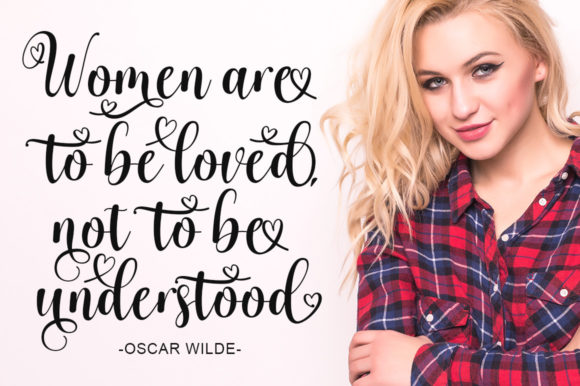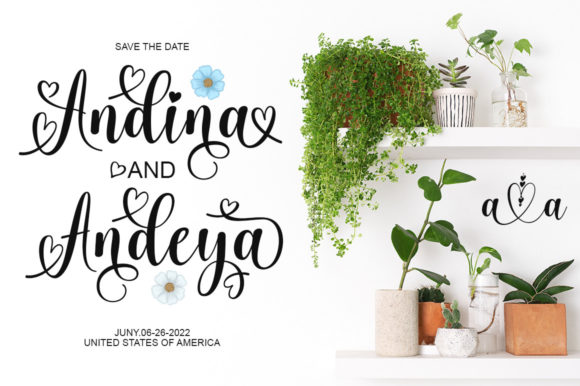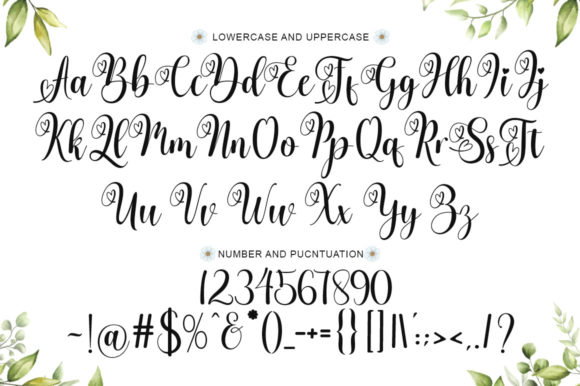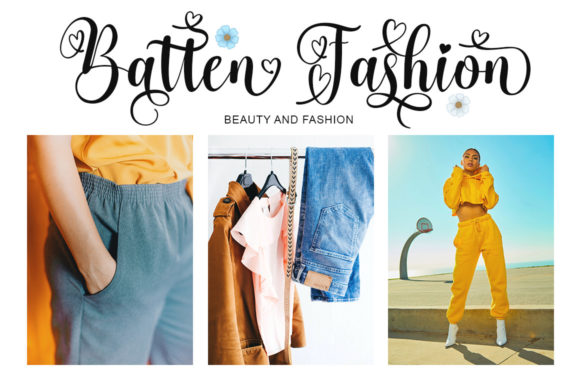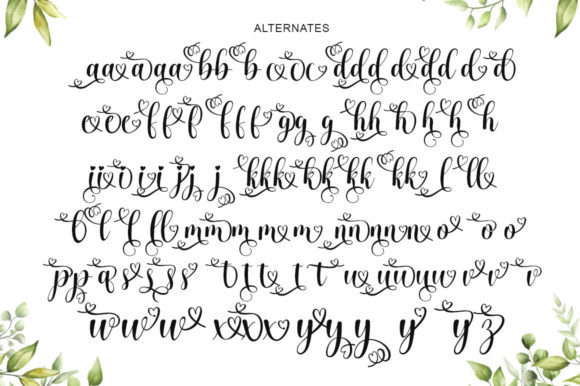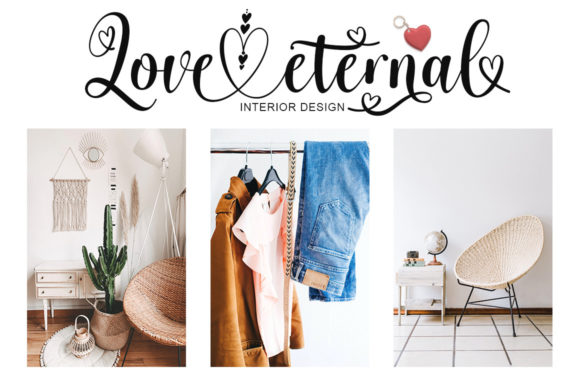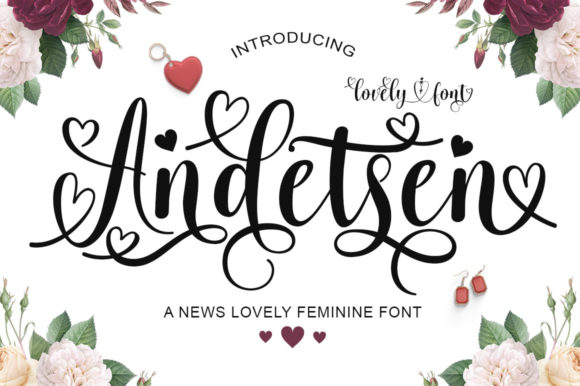
The Magic of Andetsen Font: Elevate Your Designs with Luxurious Calligraphy
I’ll never forget the time I was working on a high-end branding project for a luxury fashion client. I had spent hours perfecting the logo design, but something was missing. The design felt elegant, but it lacked a certain je ne sais quoi. That’s when I stumbled upon the Andetsen font, and it completely transformed the project. The characters danced along the baseline, adding a touch of sophistication and glamour that took the design to the next level.
Andetsen is more than just a font – it’s a statement piece. This dazzling calligraphy typeface is designed to add a luxury spark to any design project. With its unique blend of elegance and playfulness, Andetsen is perfect for designers, crafters, and creative hobbyists looking to elevate their designs.
What I Love About Andetsen Font
So, what makes Andetsen so special? Here are a few things that I love about this font:
- ✨ Luxurious feel: Andetsen has a high-end feel that’s perfect for luxury brands, weddings, and other special occasions.
- 💫 Unique character: Andetsen’s characters dance along the baseline, adding a touch of whimsy and personality to your designs.
Honest Review: The Not-So-Perfect Andetsen Font
While Andetsen is an amazing font, it’s not without its quirks. Here are a few things to keep in mind:
- 🤔 Limited use cases: Andetsen is a highly specialized font that’s best suited for luxury brands, weddings, and other special occasions. It may not be the best choice for more casual or playful designs.
The Story Behind Andetsen Font
Andetsen font was designed by a team of typographers who wanted to create a luxurious calligraphy font that would add a touch of elegance to any design. Inspired by traditional calligraphy techniques, Andetsen features intricate details and flowing script that make it perfect for high-end designs.
| Font Name | Andetsen Font |
| Author | IM Studio |
| What is Andetsen font? | Andetsen font is a luxurious calligraphy typeface designed to add a touch of elegance to any design. |